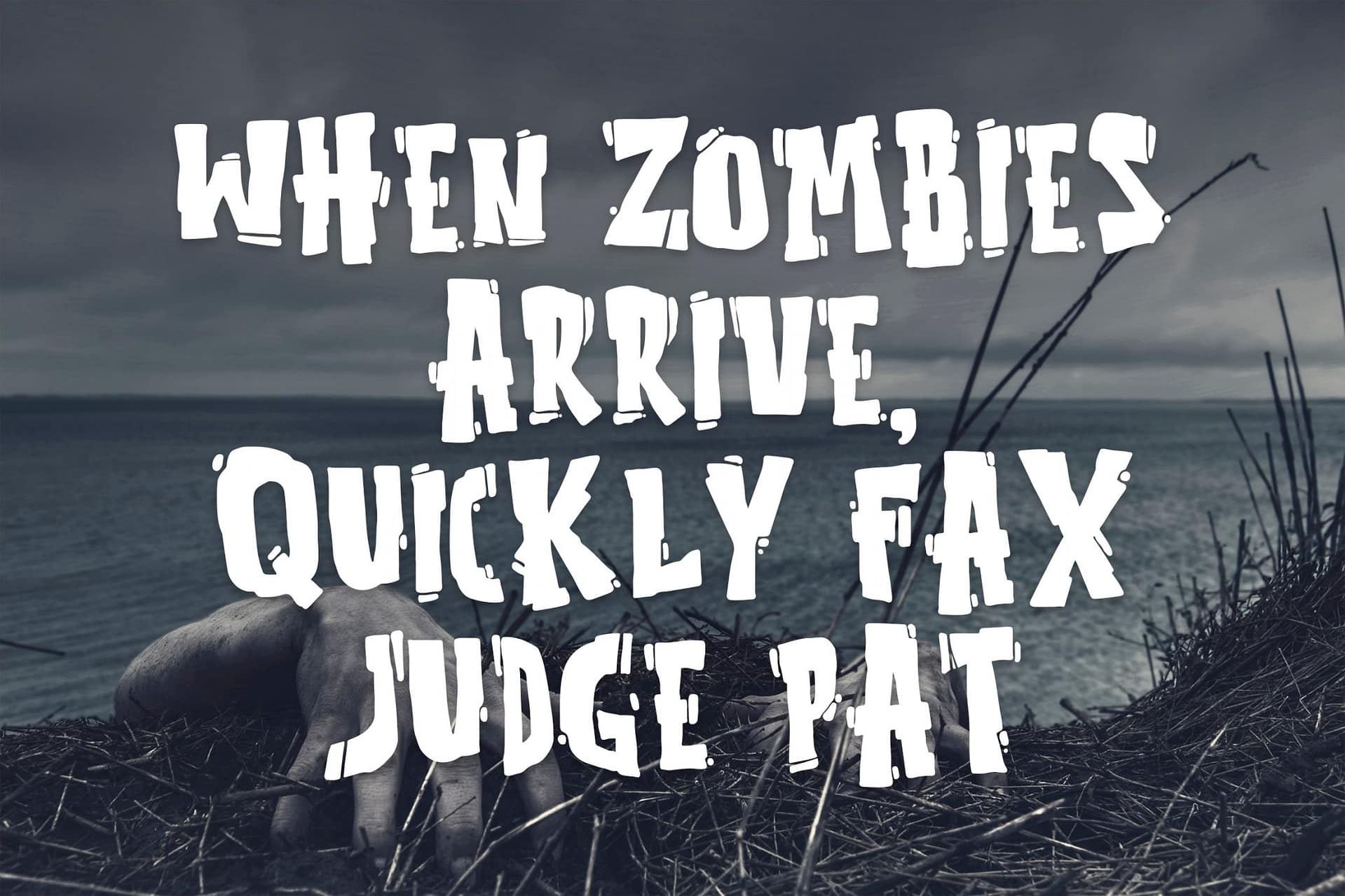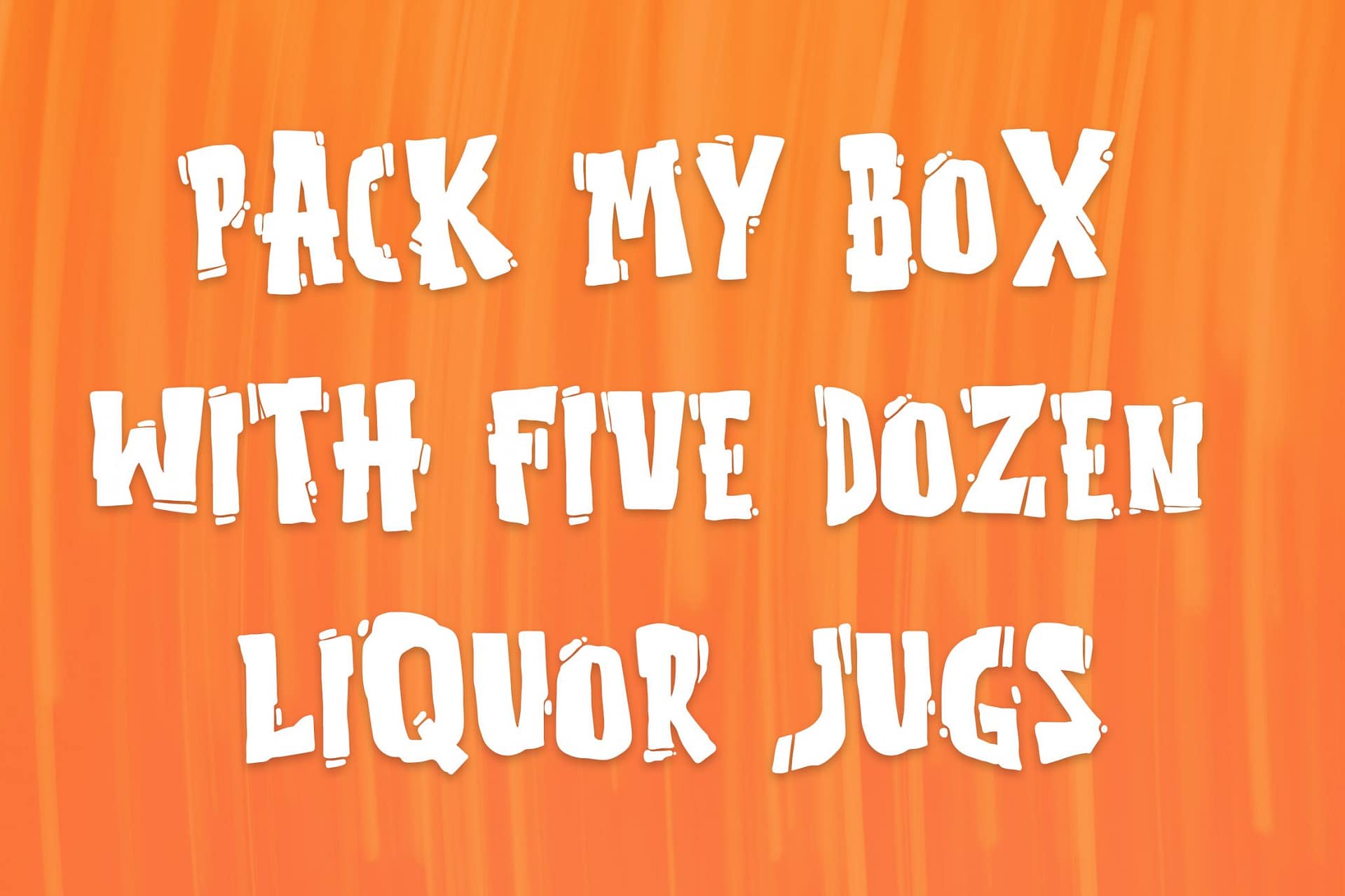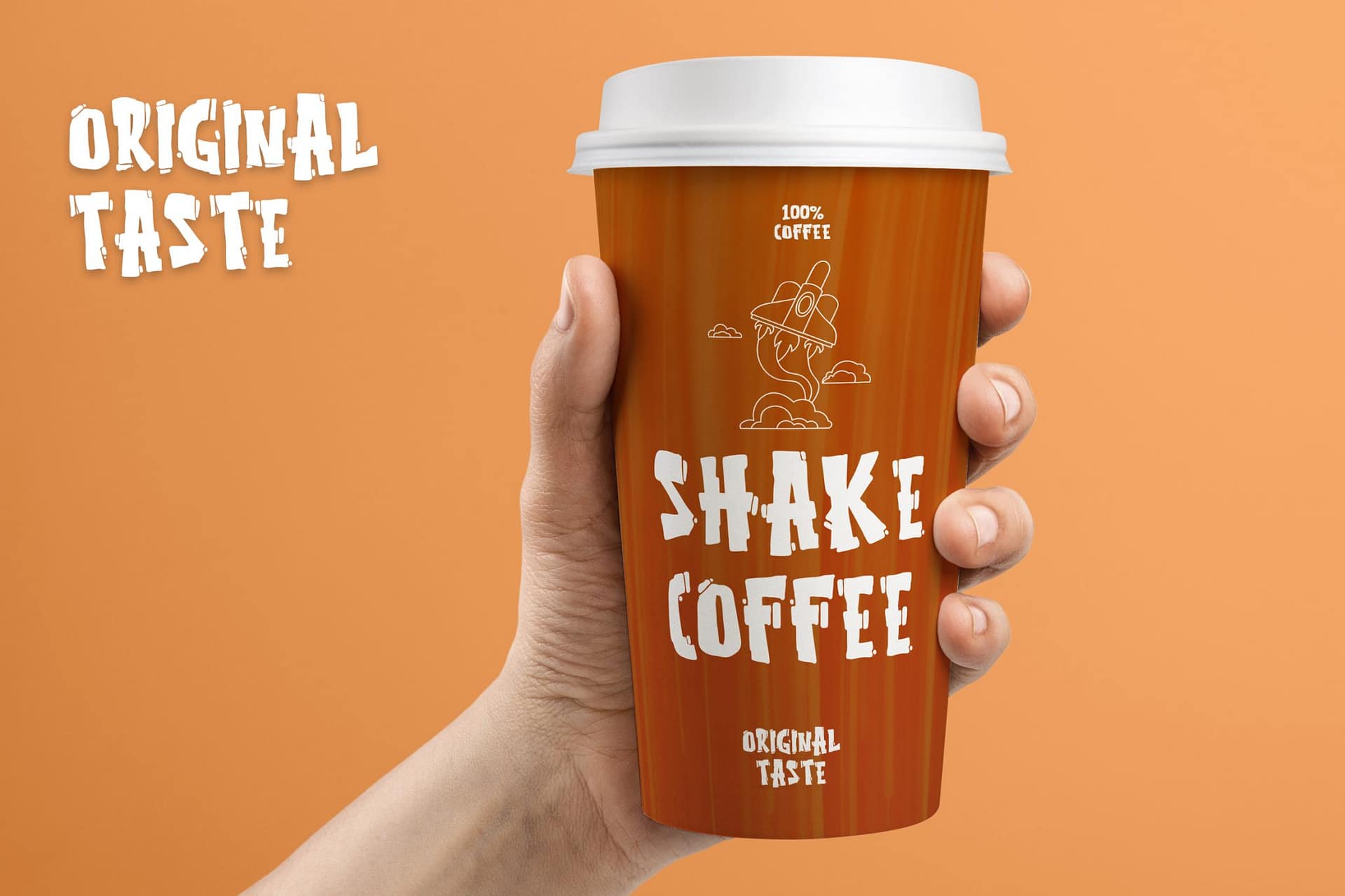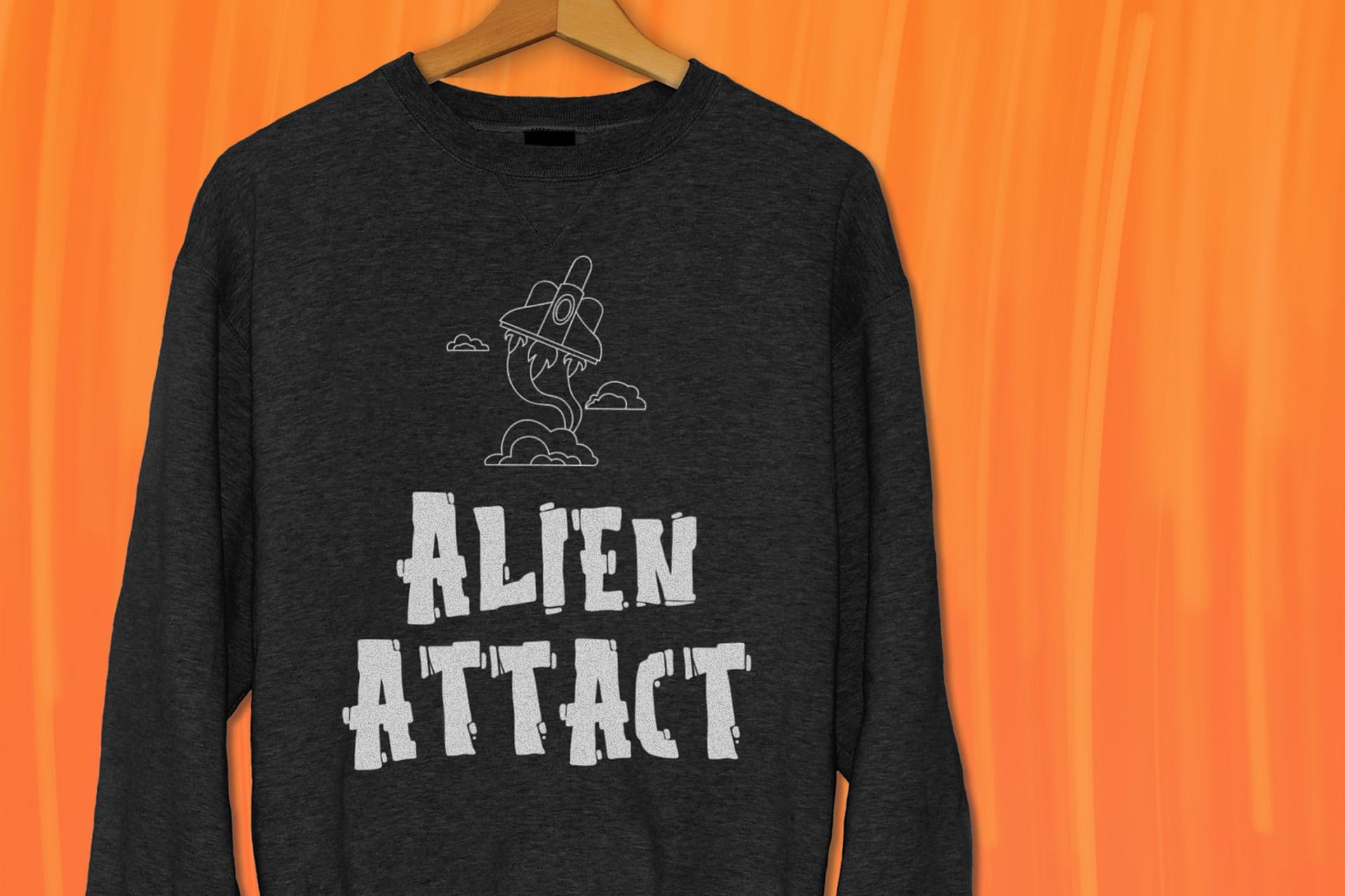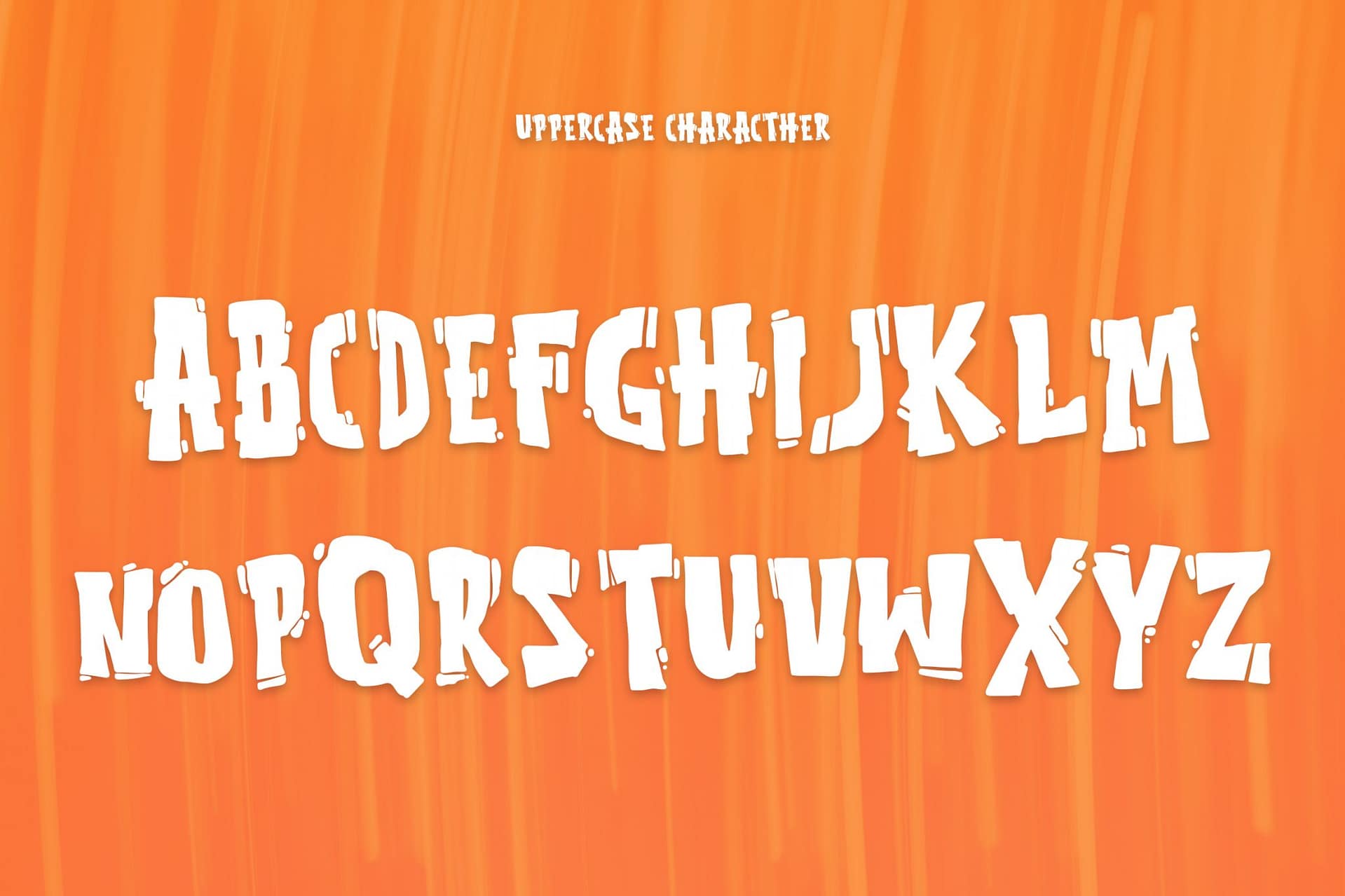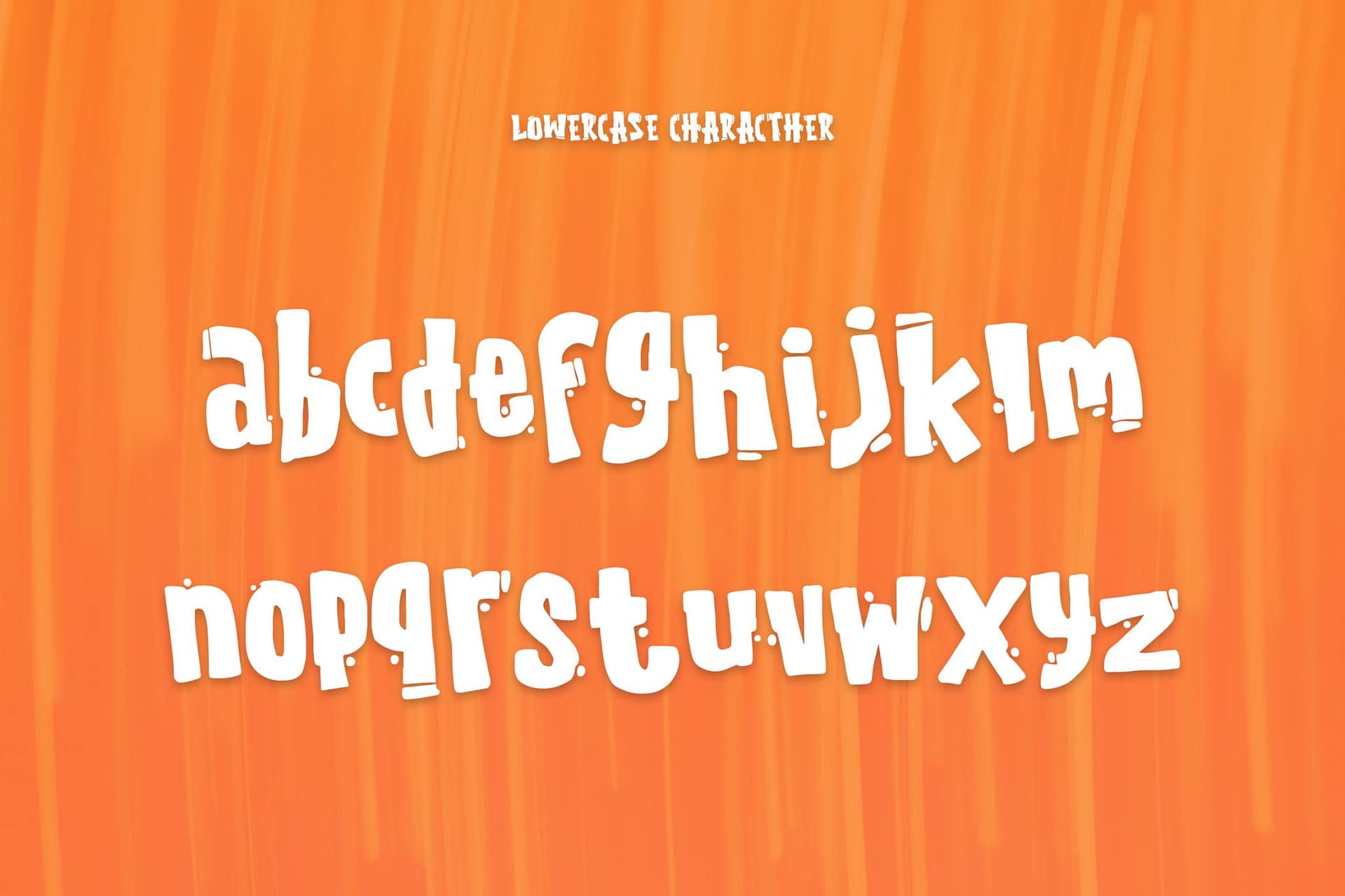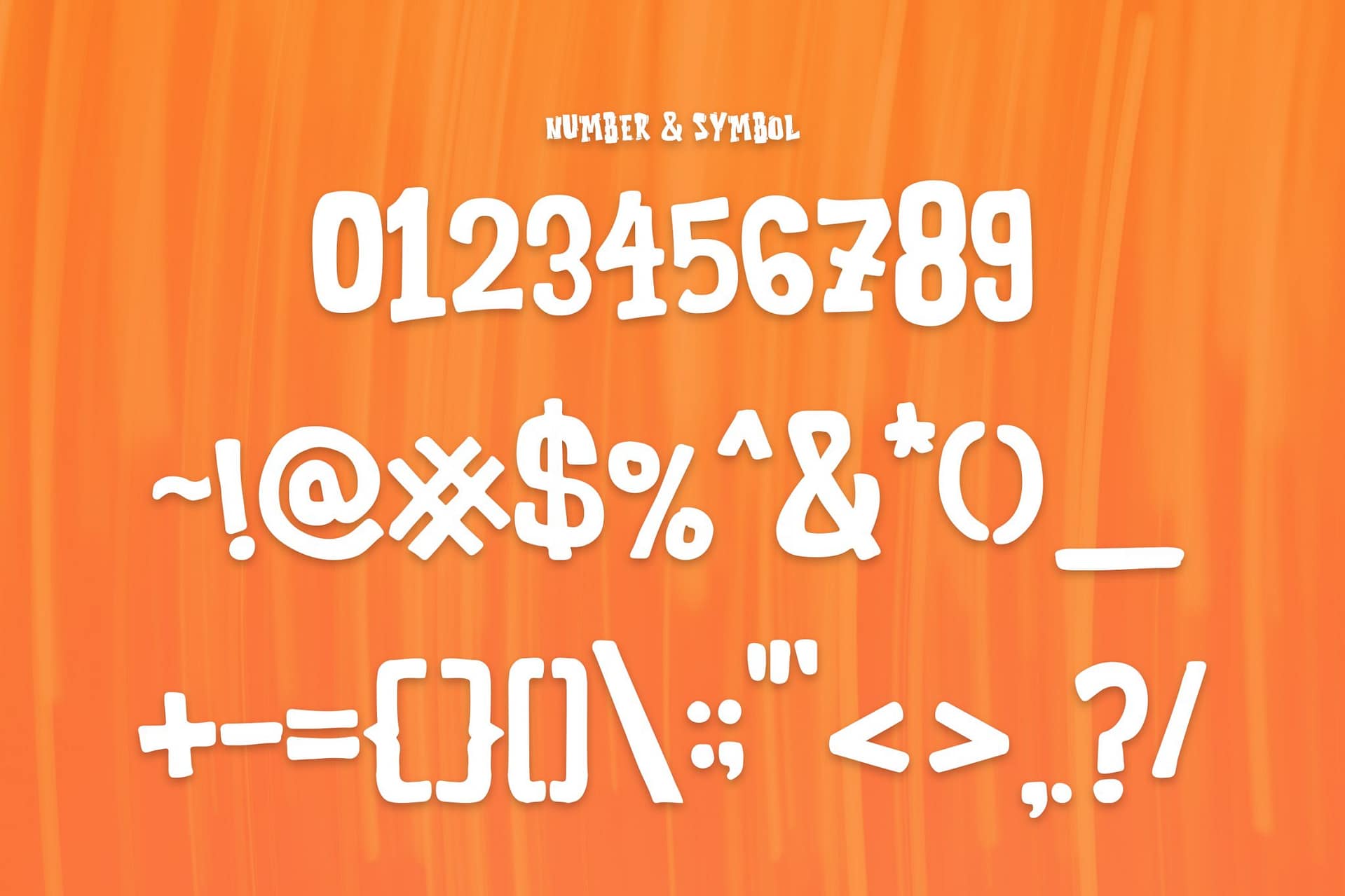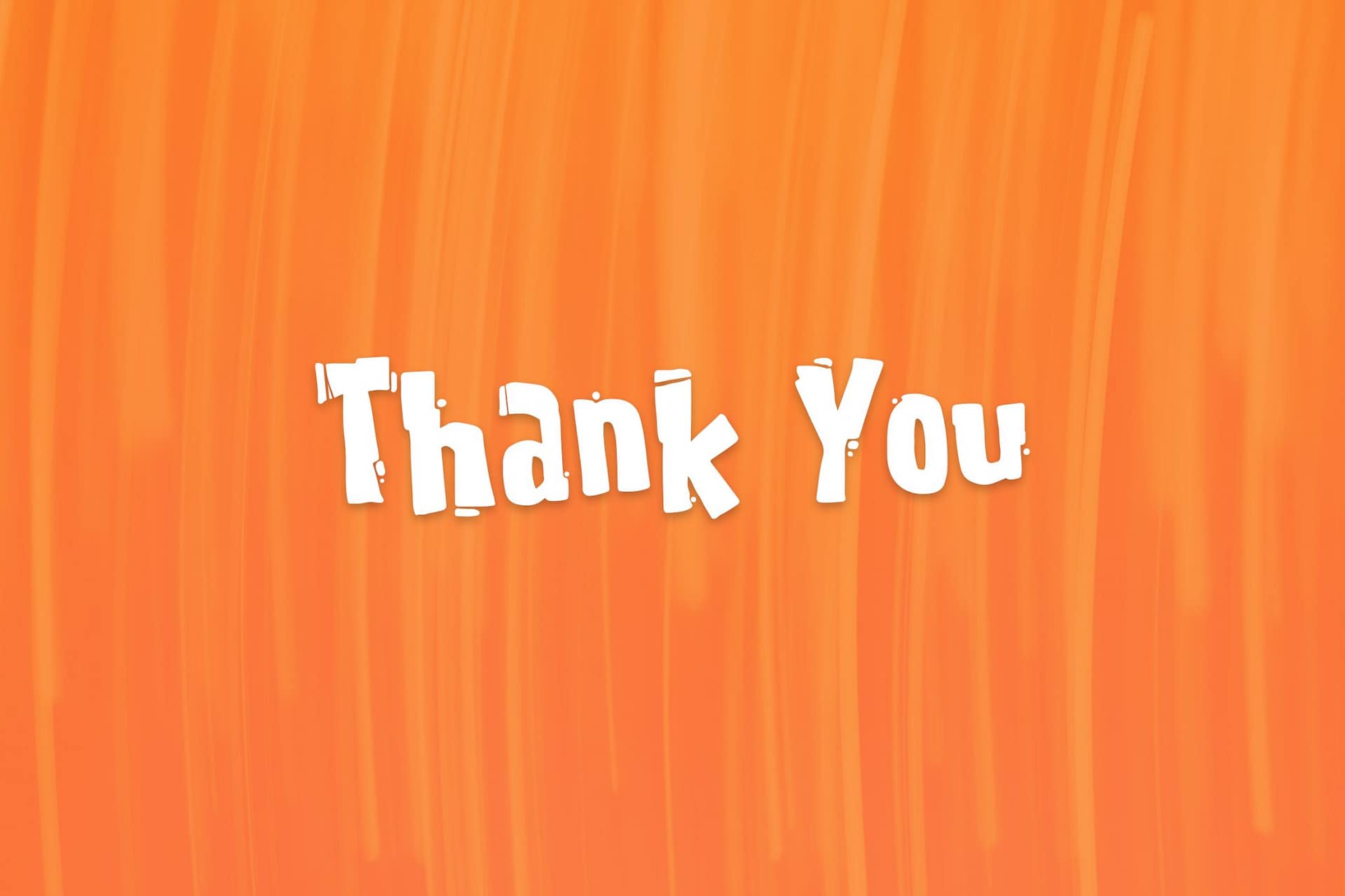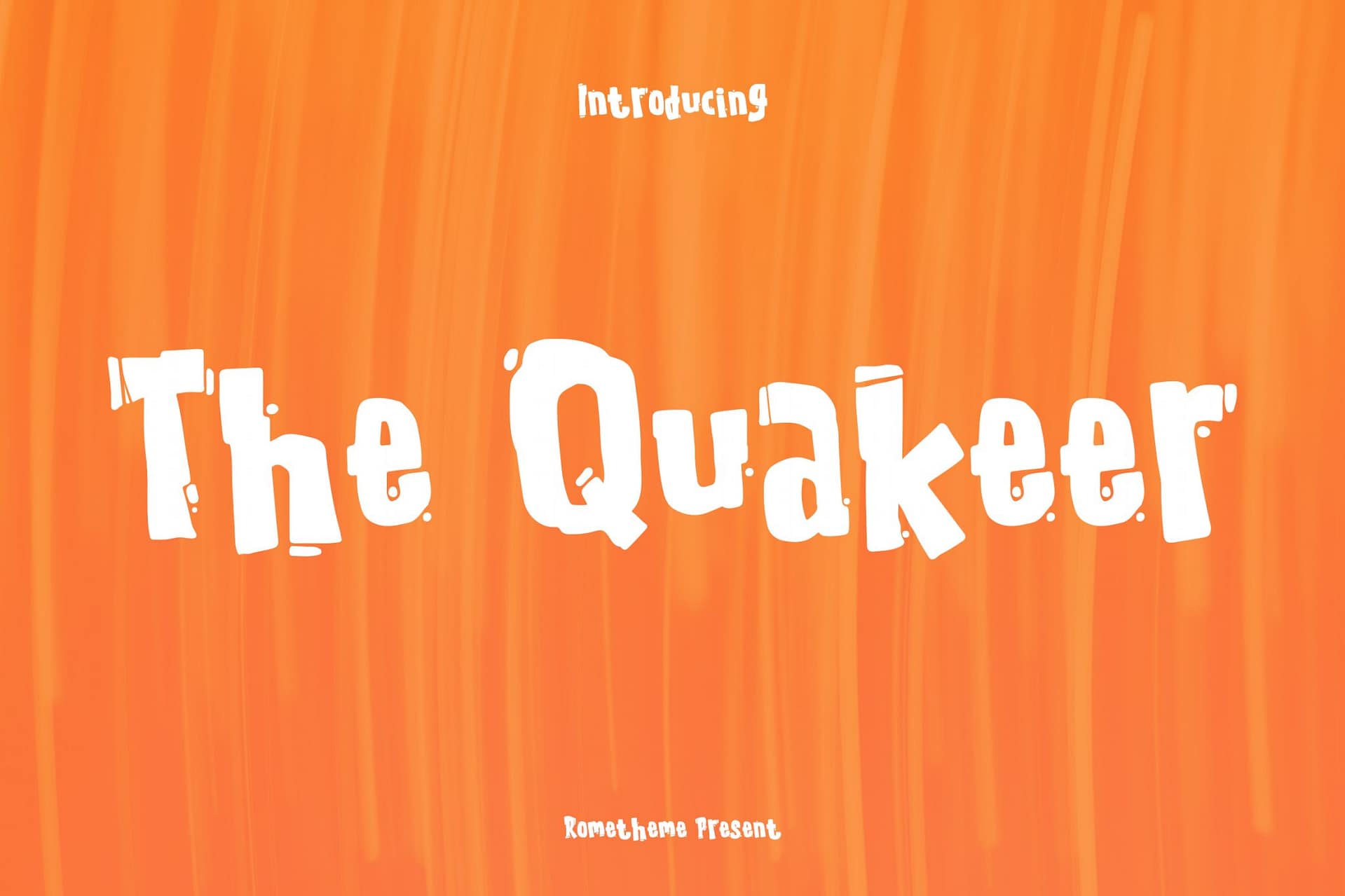
The Quakeer - Display Font
The Quakeer Font is a simple and classy handwritten font, this font looks elegant, classy, readable, stylish, catchy and easy to use.
Highlights:
• Basic Latin A-Z and a-z
• Numbers
• Symbols